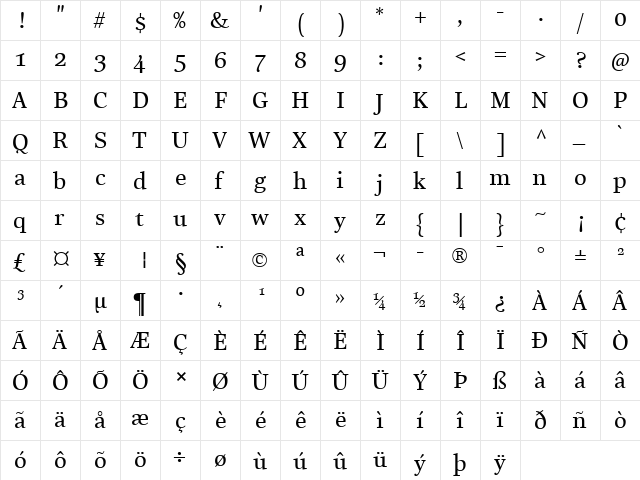
LTReally Medium Regular Font Preview
LTReally Medium Regular
LTReally Medium Regular Font Details
Design Context for LTReally Medium Typeface
LTReally Medium takes a measured approach to typography — its balanced proportions and neutral character make it a reliable workhorse for both digital and print work.